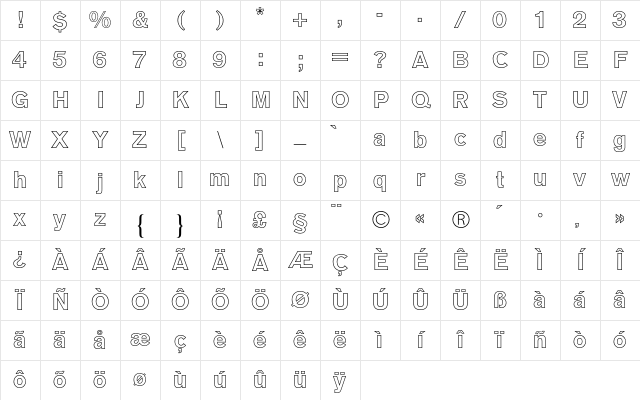
AG Old Face BQ Regular
AG Old Face BQ Family
AG Old Face BQ Regular
Design Context for AG Old Face BQ
AG Old Face BQ is a composed and adaptable typeface that performs quietly and consistently across a wide range of design contexts.